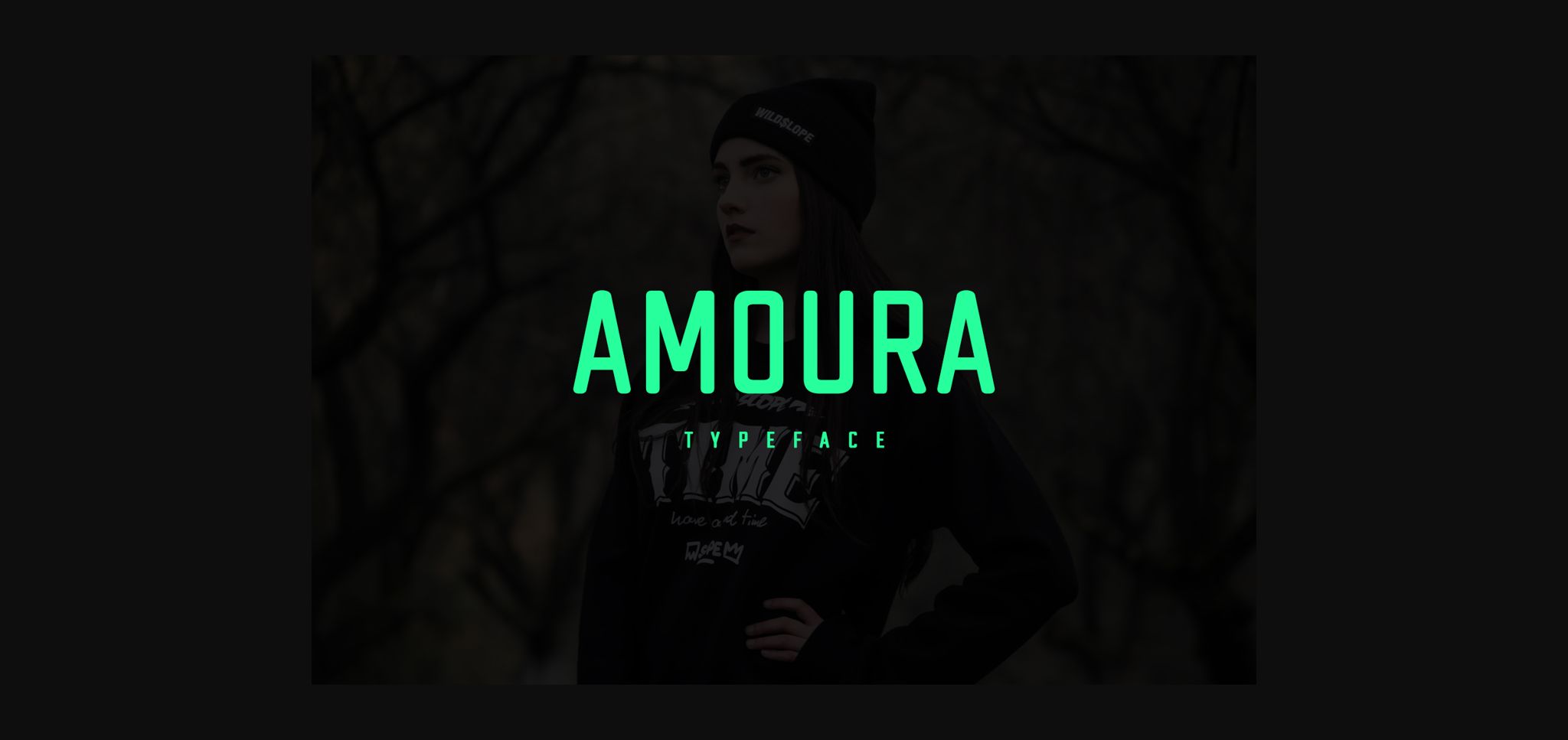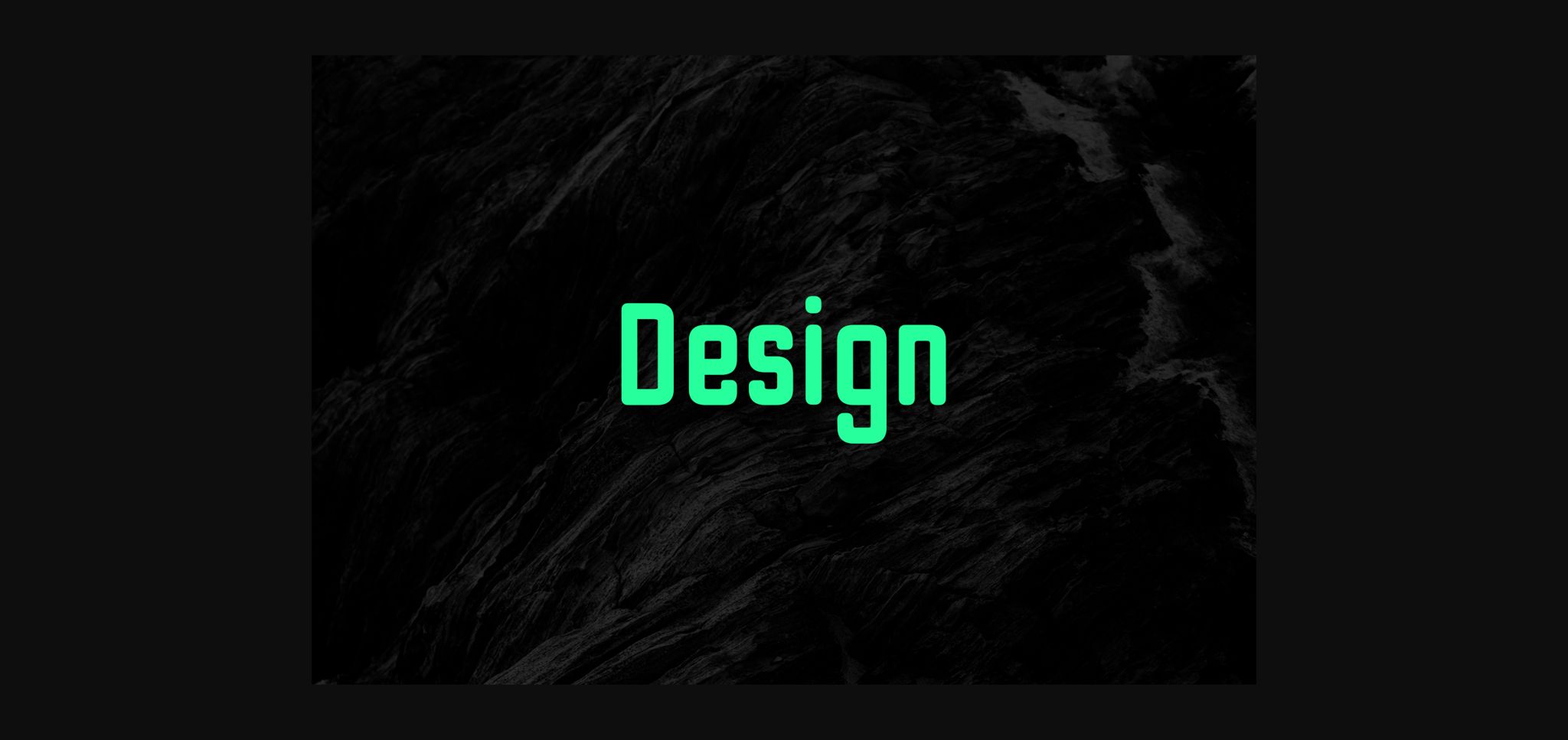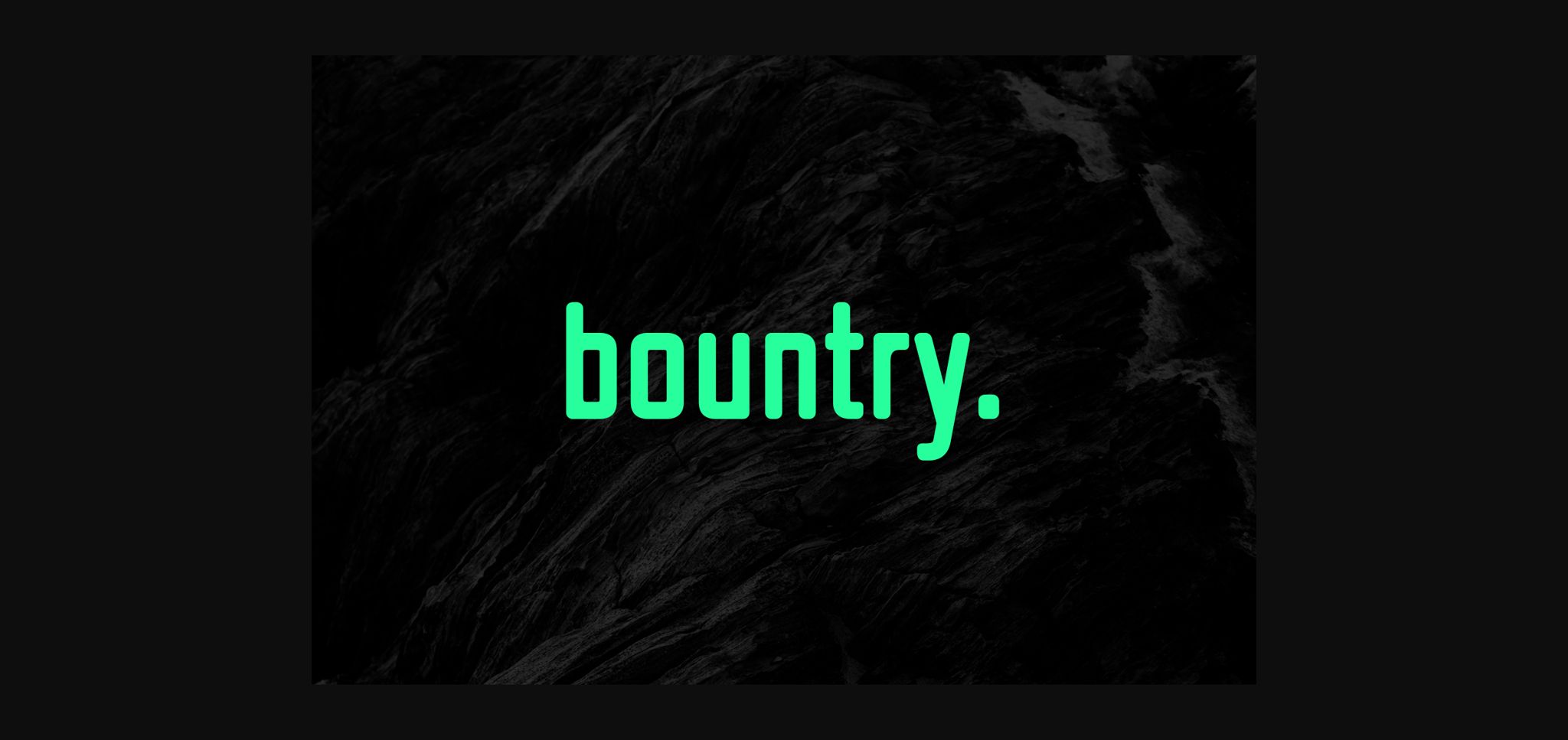
Amoura is a classic sans serif font. This typeface is suitable for creating outstanding logos, promotional content and marketing graphics that can really grab attention from your visitors and much more!